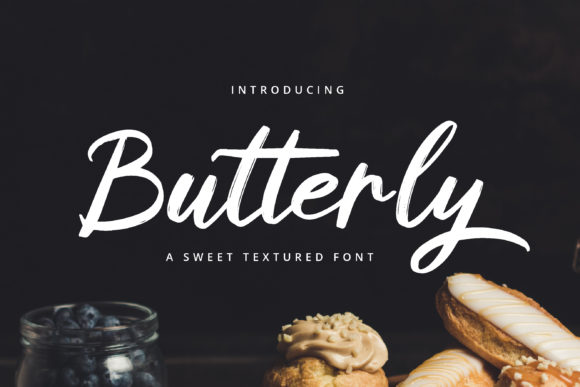
The Butterly Font: A Unique Handwritten Gem for Creative Projects
I’ll never forget the moment I stumbled upon the perfect font for a client’s branding project. I had been searching for hours, trying out different fonts, but nothing seemed quite right. That was until I discovered the Butterly font – a beautiful, handwritten script that instantly captured the playful and creative vibe of the brand. In this article, I’ll share my experience with the Butterly font, its unique features, and how to make the most of it in your design projects.
A Personal Review: What I Love About Butterly
The Butterly font has quickly become one of my go-to fonts for creative projects. Here are some things I love about it:
- ✨ Unique textures and personal charm: The Butterly font has a distinctive, hand-crafted feel that sets it apart from other fonts.
- ✅ Versatility: It can be used for a wide range of projects, from branding and posters to home-ware designs and product packaging.
- 💫 Stylish text overlays: The font looks great as a text overlay on background images, adding a touch of elegance and sophistication.
While the Butterly font is amazing, there are a few things to keep in mind:
- 🤔 Limited use for formal projects: Due to its playful and creative nature, the Butterly font may not be the best choice for formal or professional projects.
- ⚠️ Glyph limitations: As with any font, there may be limitations to the glyphs and special characters available.
- Experiment with OpenType features, such as glyphs and stylistic alternates, to add visual interest to your text.
The Story Behind Butterly
The Butterly font was created by a talented type designer who’s passionate about crafting unique and creative fonts. Inspired by the beauty of handwritten scripts, the designer set out to create a font that would capture the essence of creativity and playfulness. The result is the Butterly font – a stunning, handwritten script that’s perfect for a wide range of design projects.
| Font Name | Butterly Font |
| Author | great19 |
| What type of projects is the Butterly font best suited for? | The Butterly font is perfect for creative projects, such as branding, posters, home-ware designs, and product packaging. |